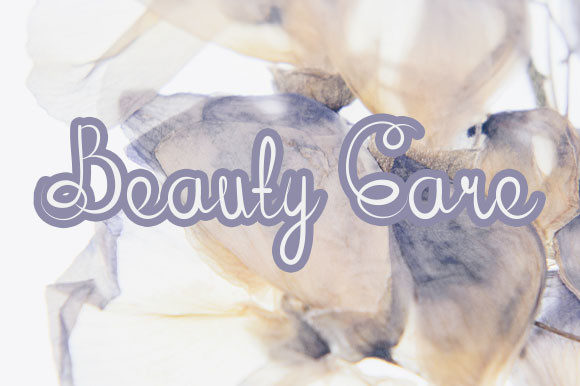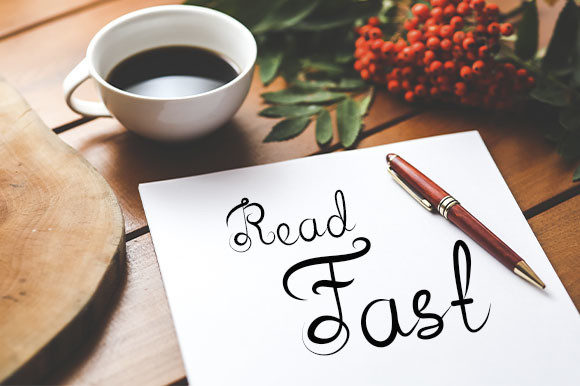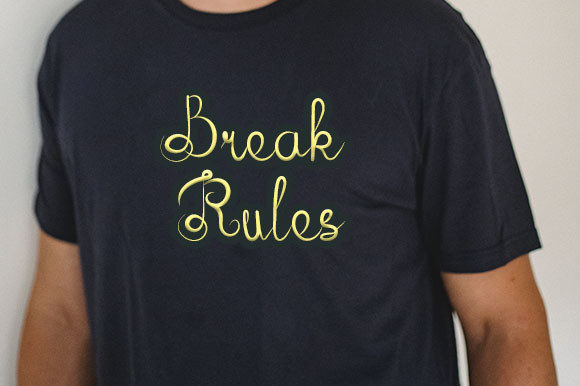
Nightfall Font
About Nightfall Font
Nightfall is a captivating and enchanting script font that brings elegance and whimsy to your designs. Its flowing and well-balanced characters lend themselves to a wide range of creative projects, allowing you to unleash your imagination and bring your ideas to life.
With Nightfall, you can create designs that are both sophisticated and playful. Whether you’re working on branding, invitations, stationery, quotes, or any other project that calls for a touch of elegance, Nightfall will add a magical and captivating element to your design.
The beauty of Nightfall lies in its versatility. It can be used for both formal and informal designs, adapting seamlessly to various themes and styles. Its graceful curves and delicate flourishes exude a sense of romance and whimsy, making it ideal for wedding invitations, love-themed designs, and anything that requires a touch of enchantment.
When it comes to typography, Nightfall shines with its attention to detail. The characters are carefully crafted to ensure harmony and balance, creating a harmonious flow from letter to letter. This attention to detail enhances the overall aesthetic of your design, making it visually appealing and captivating to the viewer.
Adding Nightfall to your creative ideas will truly make them come alive. Its elegant and whimsical nature brings a touch of magic and intrigue to your designs, allowing you to create captivating and memorable visuals. Whether you’re designing for print or digital platforms, Nightfall will leave a lasting impression on your audience.
In summary, Nightfall is an elegant and whimsical script font that offers a wide range of creative possibilities. Its beautiful and well-balanced characters make it suitable for a variety of designs, from formal to informal. Whether you’re working on branding, invitations, or quotes, Nightfall will add a touch of enchantment and captivate your audience. Embrace the magic of Nightfall and watch your designs come alive.